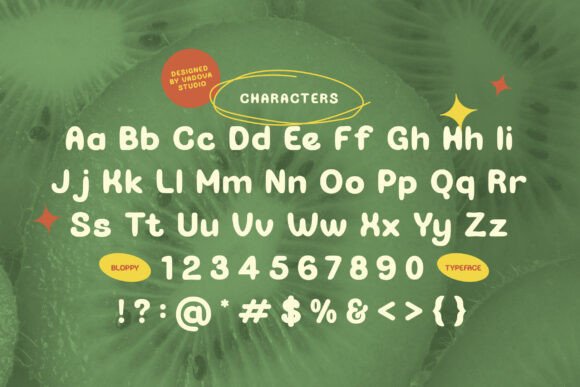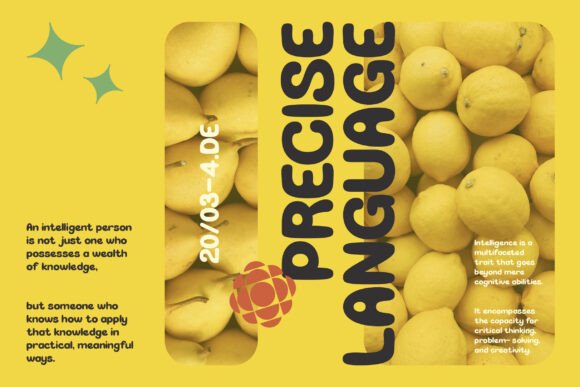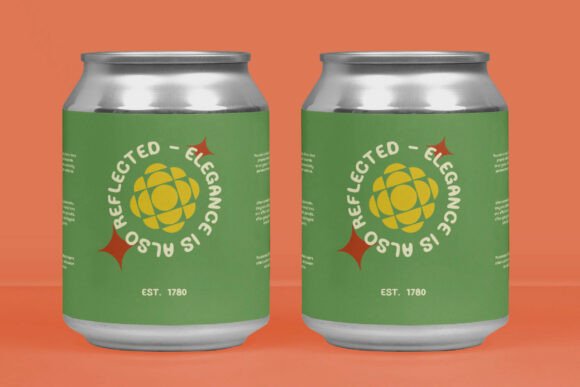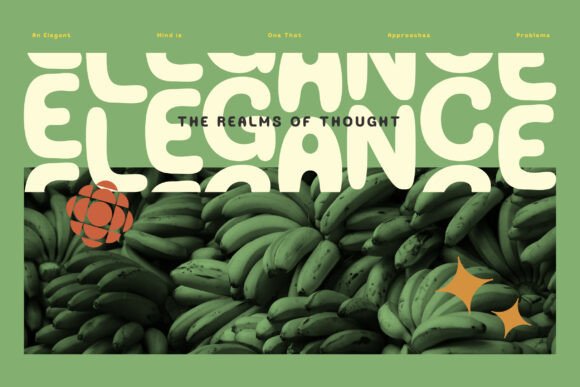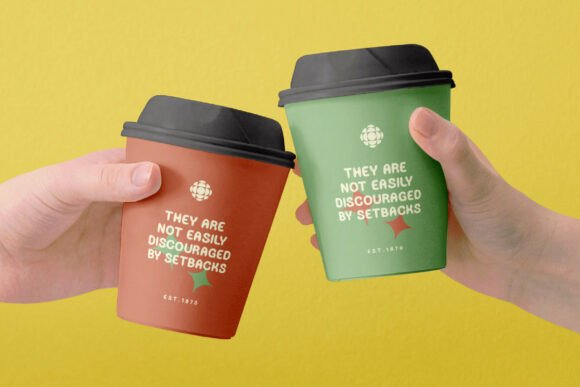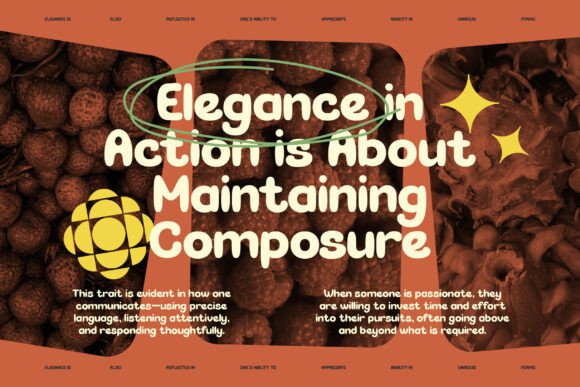
Introducing Bloppy Font: The Playful Bubble Typeface for Fun and Youthful Designs
Are you looking for a font that can add a friendly and cheerful personality to your design projects? Look no further than Bloppy Font, a playful bubble typeface that is sure to bring a smile to your audience’s faces. With its soft curves, chunky strokes, and handwritten feel, Bloppy is the perfect choice for designers and crafters who want to create fun, youthful, and approachable designs.
What is Bloppy Font?
Bloppy Font is a unique and charming typeface that features rounded organic shapes, reminiscent of bubbles. Its distinctive design makes it stand out from other fonts, and its playful personality is sure to capture the attention of your audience. Whether you’re working on a branding project, designing packaging for kids’ products, or creating social media visuals, Bloppy Font is the perfect choice.
Characteristics of Bloppy Font
So, what makes Bloppy Font so special? Here are some of its key characteristics:
- Soft curves: Bloppy Font features soft, rounded curves that give it a friendly and approachable feel.
- Chunky strokes: The font’s chunky strokes add a playful and youthful touch to any design.
- Handwritten feel: Bloppy Font has a handwritten feel that makes it perfect for designs that need a personal touch.
- Rounded organic shapes: The font’s rounded organic shapes give it a unique and distinctive look.
Use Cases for Bloppy Font
Bloppy Font is a versatile typeface that can be used in a variety of design projects. Here are some of the most popular use cases:
- Branding: Use Bloppy Font to create a friendly and approachable brand identity that resonates with your target audience.
- Kids products: The font’s playful and youthful personality makes it perfect for designing packaging and marketing materials for kids’ products.
- Food packaging: Add a fun and cheerful touch to your food packaging designs with Bloppy Font.
- Social media visuals: Use Bloppy Font to create eye-catching social media visuals that stand out from the crowd.
- Game titles: The font’s bold and playful personality makes it perfect for game titles and logos.
- Creative merchandise: Use Bloppy Font to create fun and unique designs for creative merchandise, such as t-shirts, stickers, and tote bags.
Why Choose Bloppy Font?
So, why should you choose Bloppy Font for your design projects? Here are just a few reasons:
- Unique and distinctive: Bloppy Font is a one-of-a-kind typeface that will help your designs stand out from the crowd.
- Playful and youthful: The font’s playful and youthful personality is sure to appeal to a wide range of audiences.
- Versatile: Bloppy Font can be used in a variety of design projects, from branding and packaging to social media visuals and game titles.
- Easy to read: Despite its playful personality, Bloppy Font is easy to read and understand, making it perfect for designs that need to communicate a message.
In conclusion, Bloppy Font is a playful bubble typeface that is sure to bring a friendly and cheerful personality to any design project. With its soft curves, chunky strokes, and handwritten feel, Bloppy is the perfect choice for designers and crafters who want to create fun, youthful, and approachable designs. Whether you’re working on a branding project, designing packaging for kids’ products, or creating social media visuals, Bloppy Font is the perfect choice. So why not give it a try and see how it can elevate your designs?